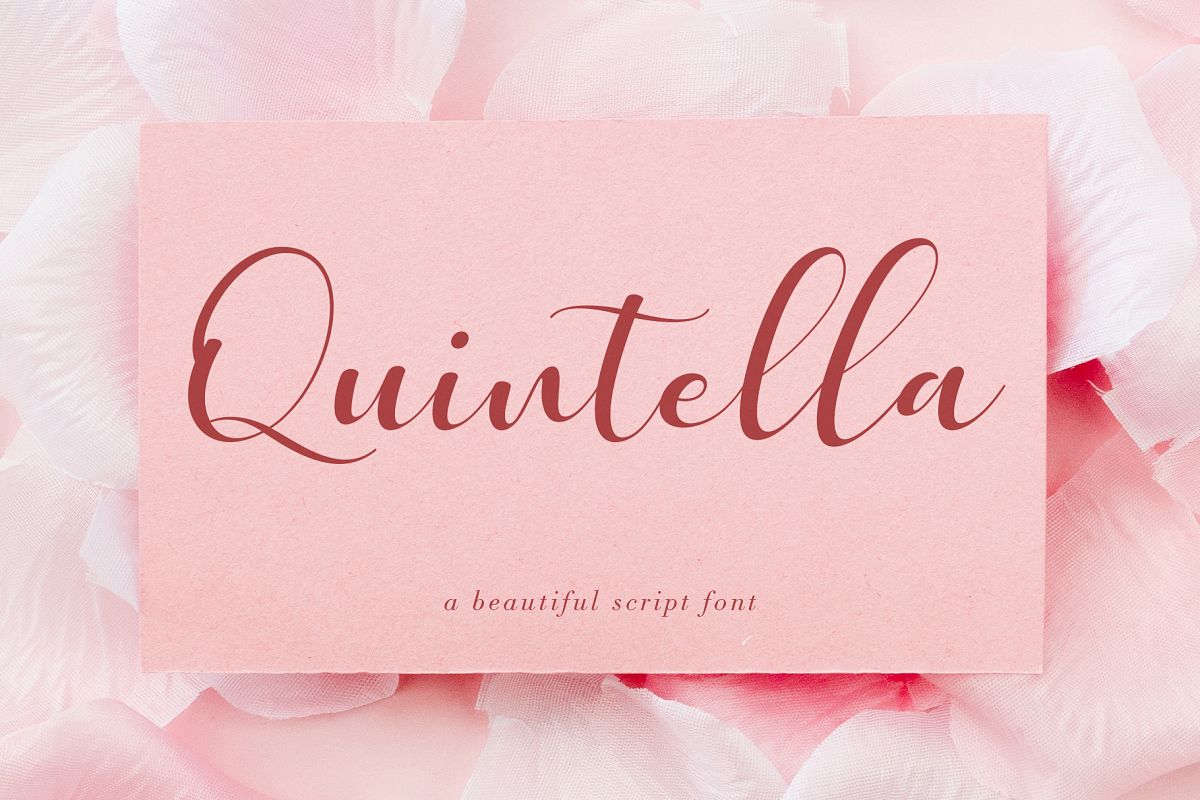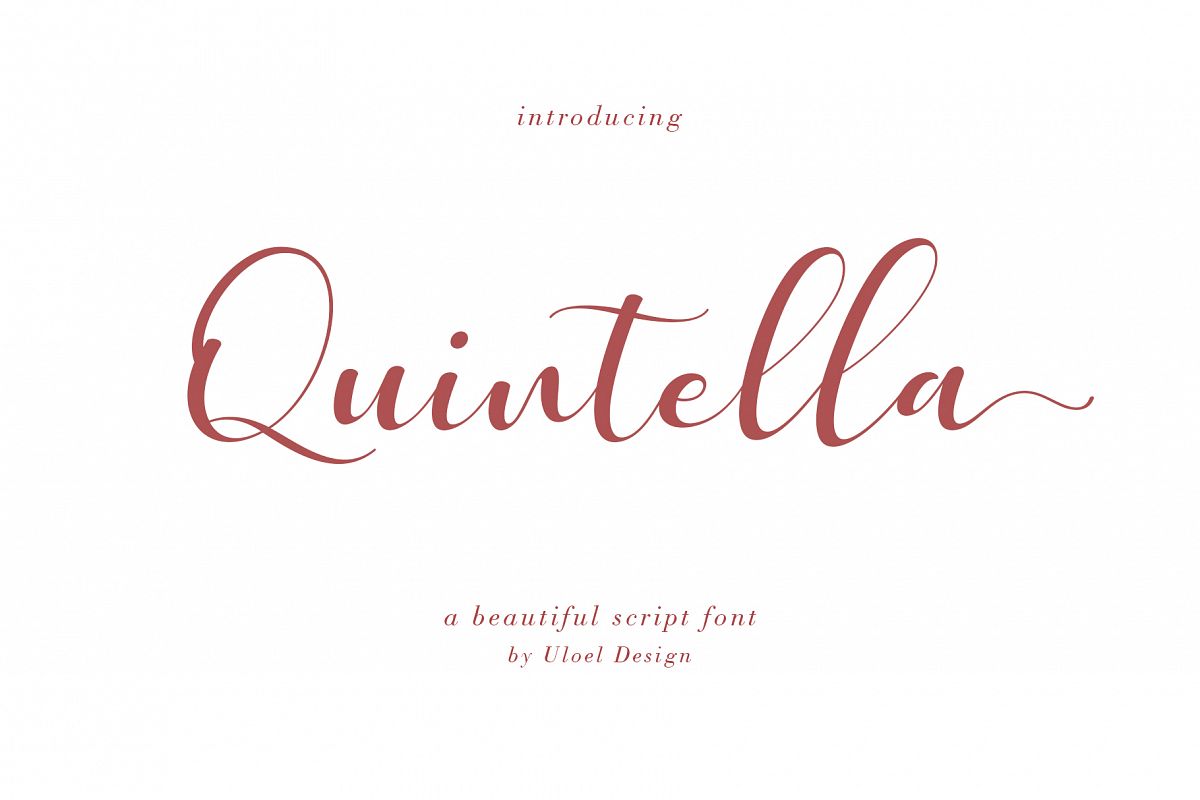
Quintella
Quintella Script a  fresh & modern script with a handmade calligraphy style, decorative characters So beautiful on invitation like greeting cards, branding materials, business cards, quotes, posters, and more!!